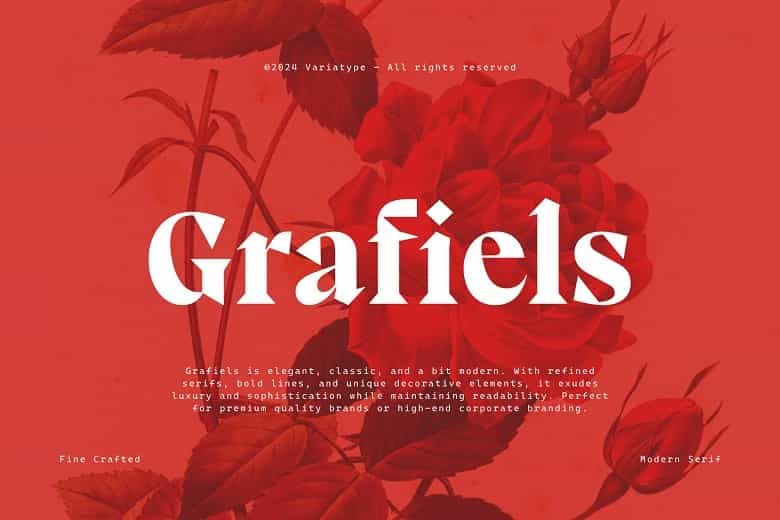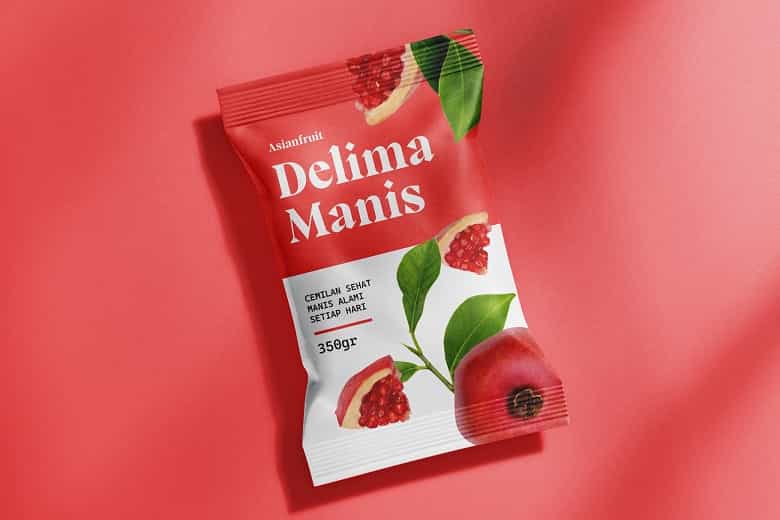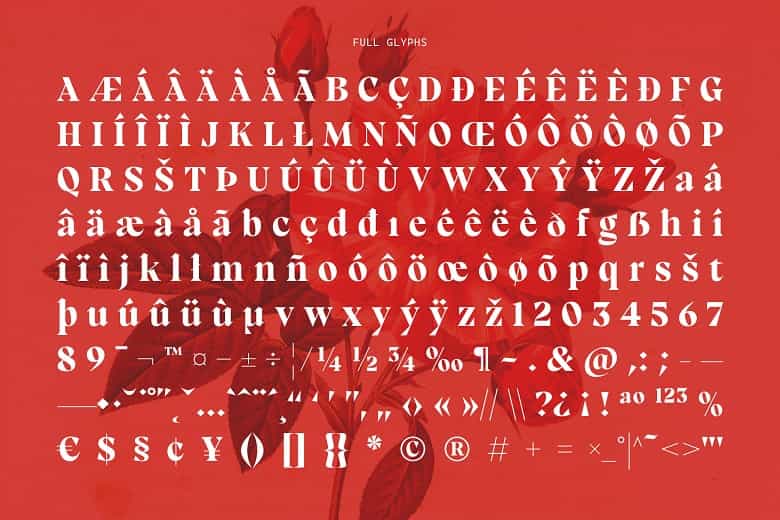
Grafiels is an elegant, classic and a mildly modern serif font. As a work of art with delicate serifs, strong strokes, and special accents, it looks expensive but remains easy to read. Ideal for premium quality brands or premium corporate identity or business logo.